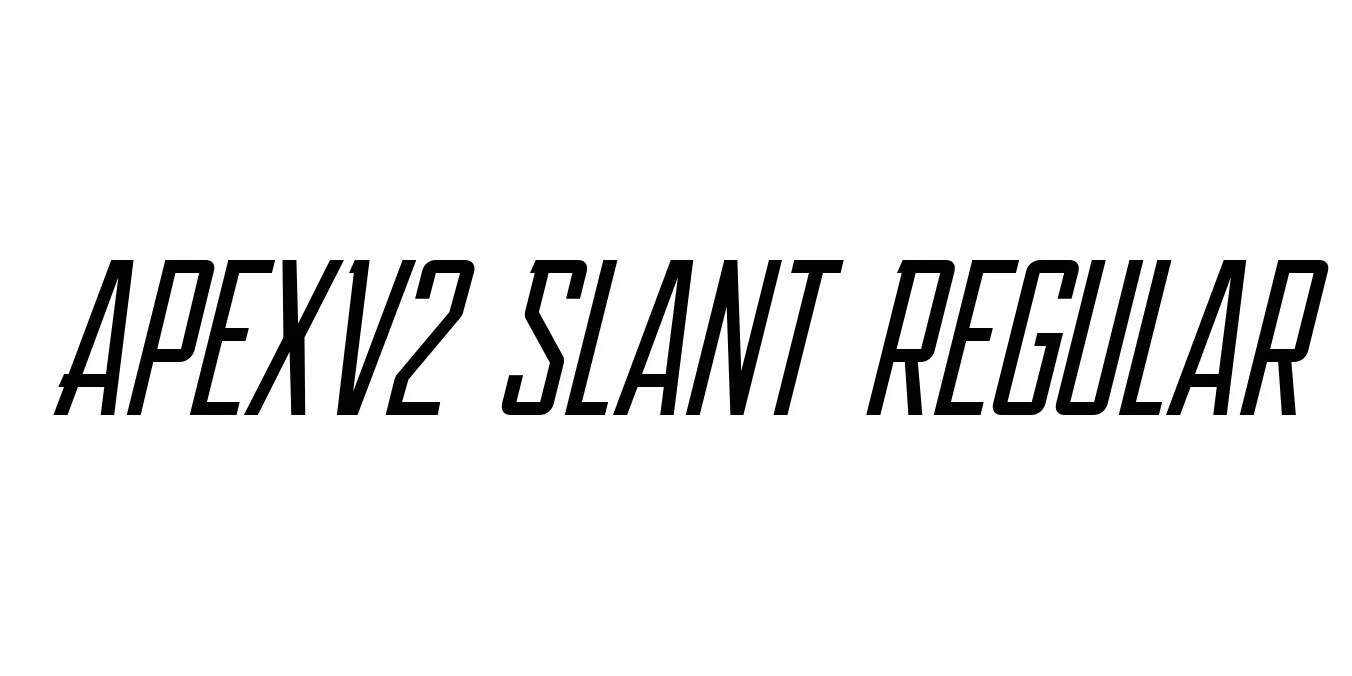
ApexV2 Slant Regular
Designed by Jeremy Nelson
| Category | Display Sans Serif |
| Designer | Jeremy Nelson |
ApexV2 Slant Regular is a precision-engineered display typeface that draws inspiration from geometric san-serif foundations and classic athletic typography. Characterized by its robust, blocky letterforms and sharp corners, this font is designed to command attention in high-impact visual environments. The V2 iteration refined the original proportions for better legibility at various sizes while maintaining its signature futuristic and industrial aesthetic.
The Slant variation of ApexV2 introduces a dynamic sense of motion and urgency to the typeface. By incorporating a precise italicized angle, the font evokes a feeling of speed and technological advancement, making it a favorite for sports branding, esports logos, and cinematic title sequences. Its clean lines and consistent stroke widths ensure that it remains legible even when used in complex digital interfaces or fast-paced motion graphics.
ApexV2 Slant Regular Best Uses
High-energy athletic logos, team jerseys, and collegiate apparel.
Digital interfaces, esports team identities, and HUD elements.
Modern branding for software startups and hardware manufacturers.
Impactful titles for posters, magazine covers, and cinematic trailers.